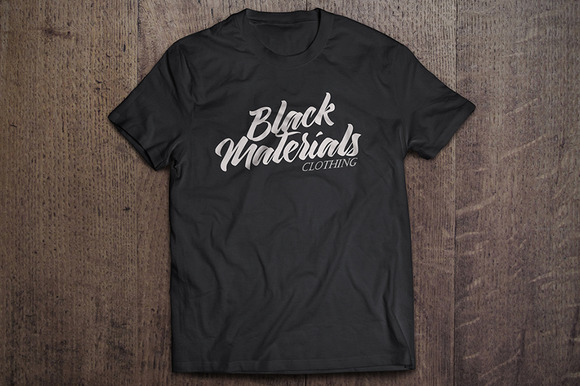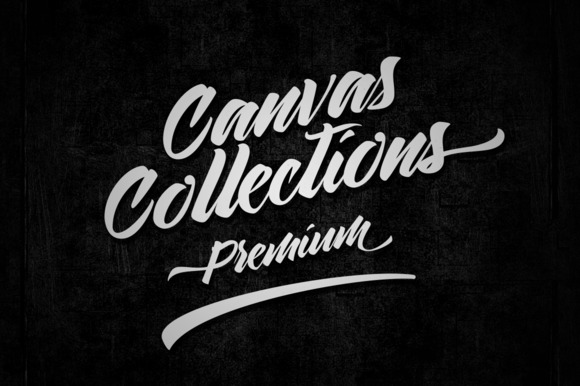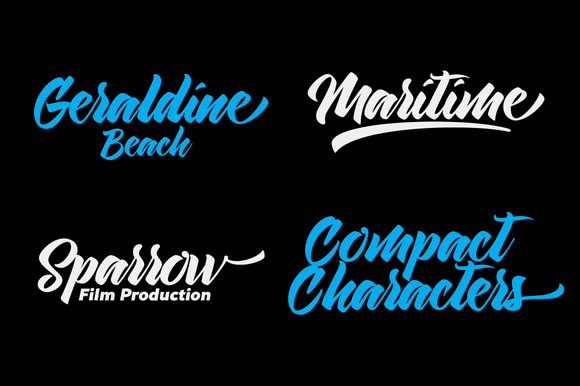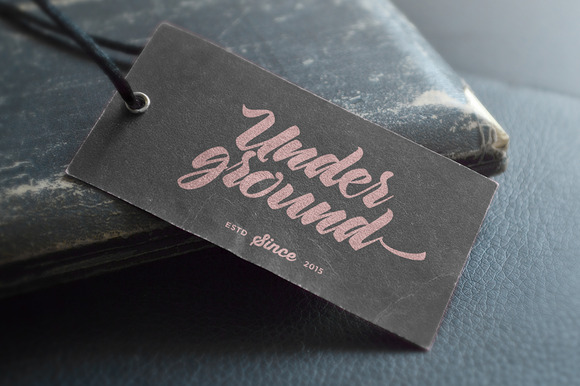
Maulina Typeface
Maulina is a script typeface with personality. It was designed as a display typeface. You can use it as a logo, badge, insignia, packaging, headline, poster, t-shirt/apparel, greeting card, and wedding invitation.
The flowing characters are ideal to make an attractive messages, mix and match Maulina with a bunch of alternative characters to fit your project.
The alternative characters in this font were divided into several OpenType features such as Stylistic Alternates and Ligature. The OpenType features can be accessed by using OpenType savvy program such as Adobe Illustrator etc. Files included :